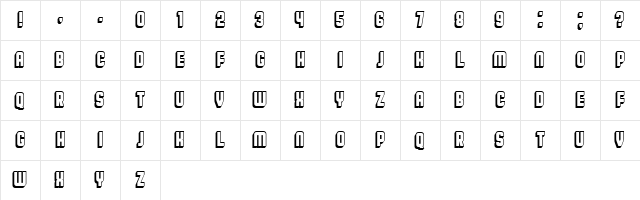
Broadway Flat 3D Regular
Design Context for Broadway Flat 3D Typeface
Broadway Flat 3D is a composed and adaptable typeface that performs quietly and consistently across a wide range of design contexts.